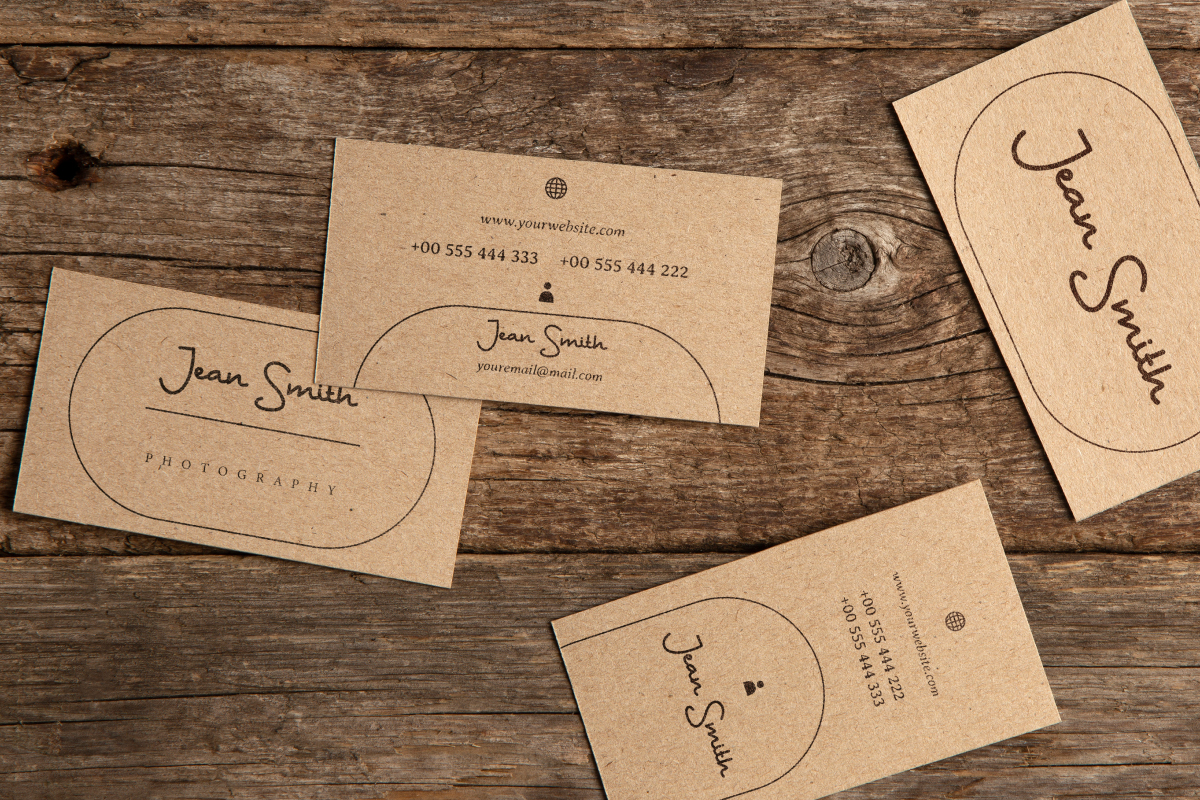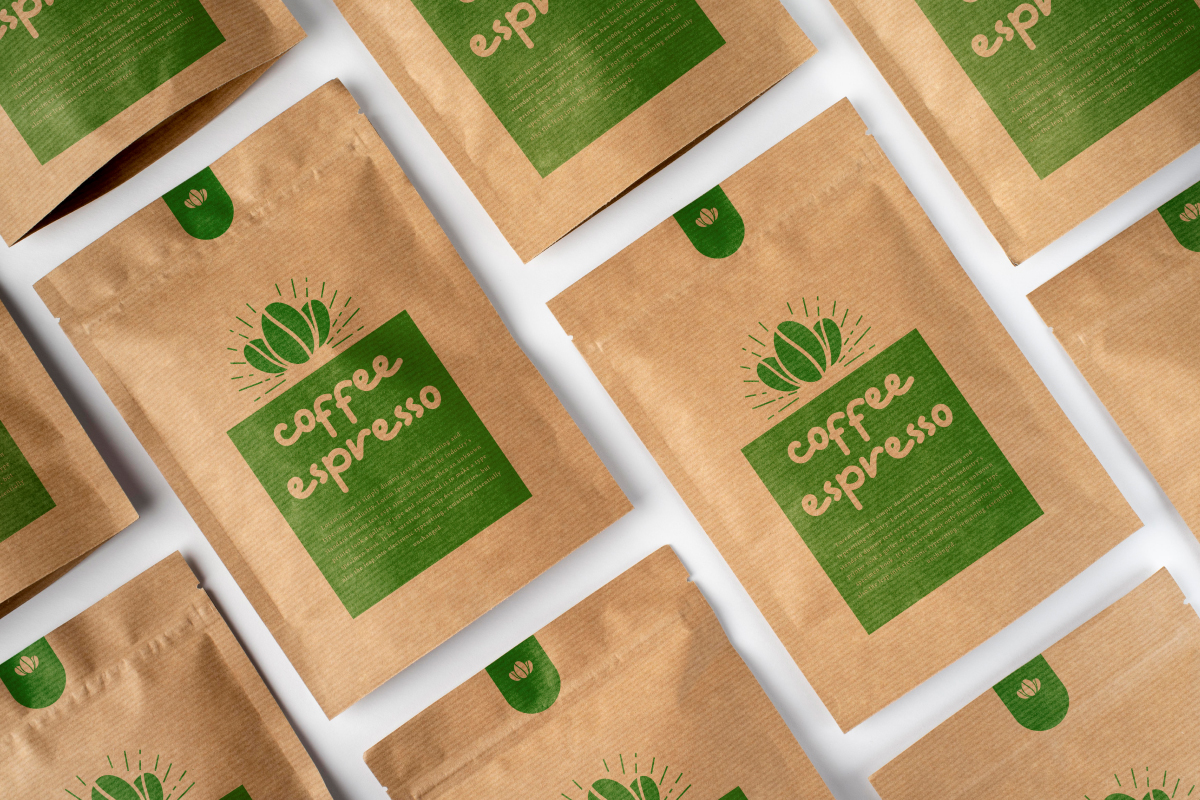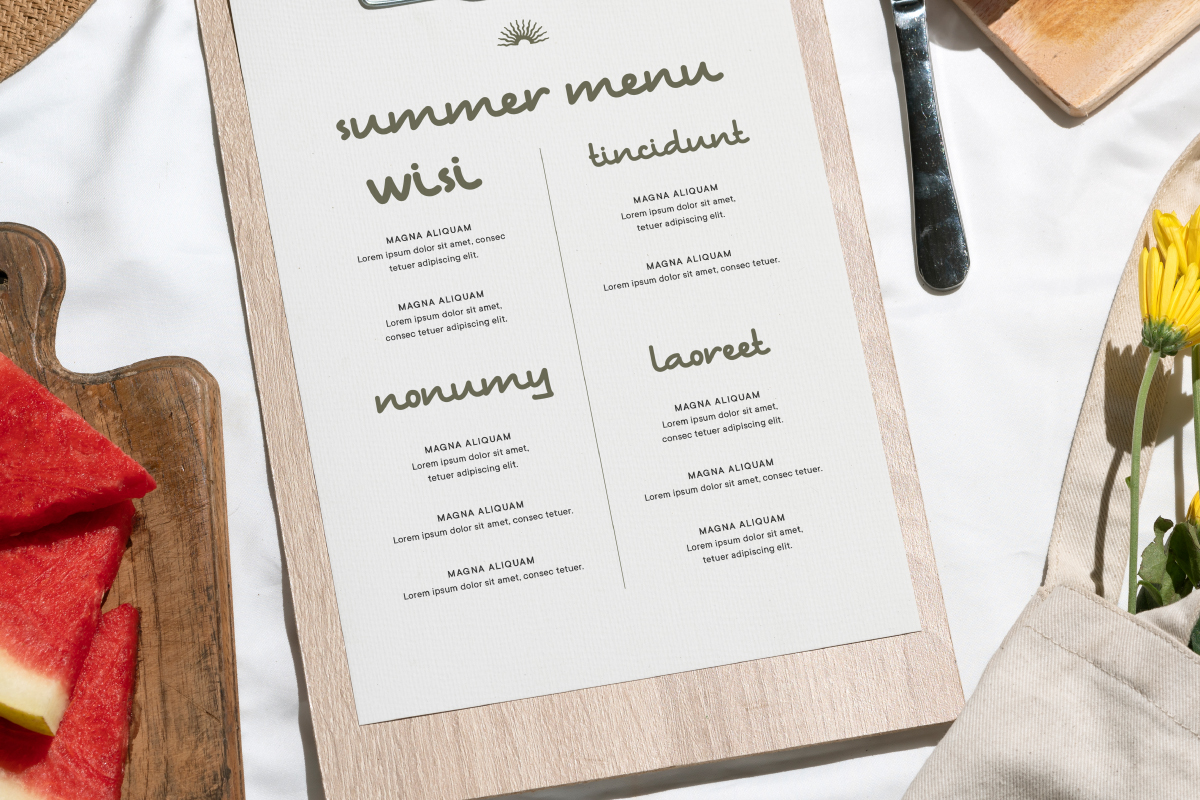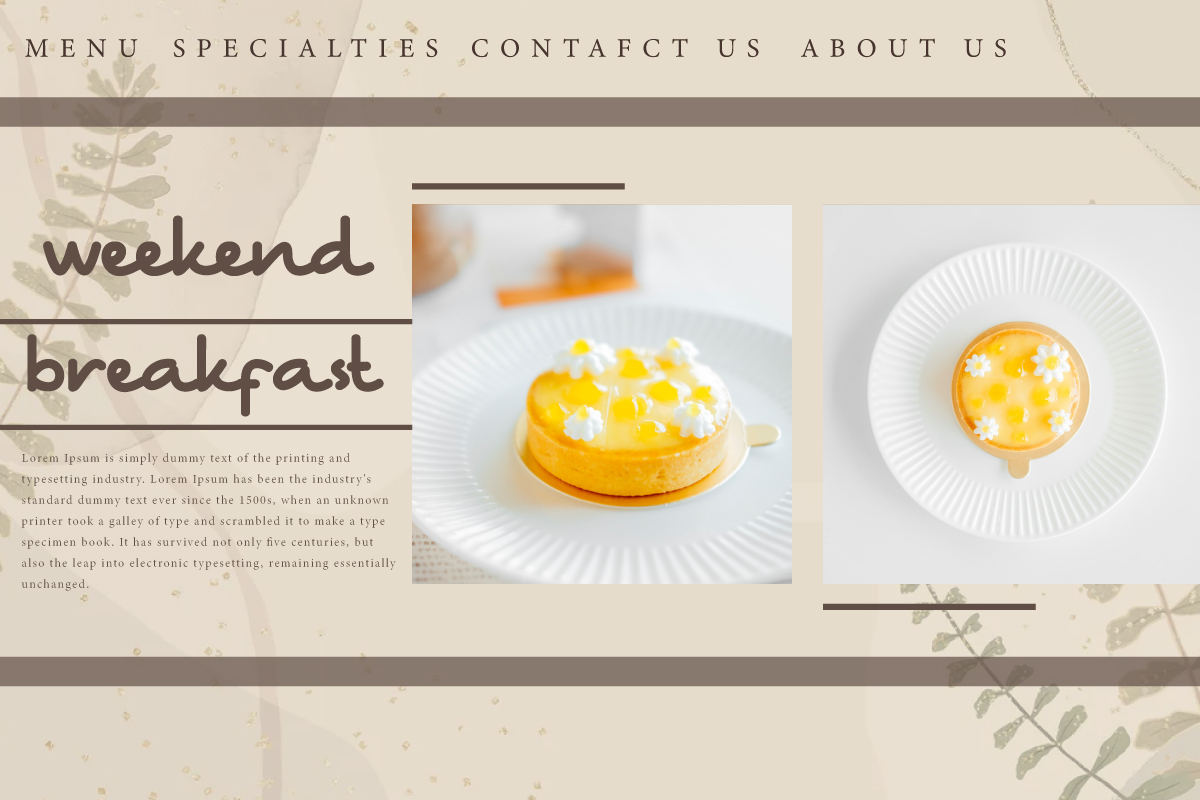
Hashtag Trend Font
Hashtag Trend Handwritten Font is a stylish handwritten font with a clean elegant monoline style, created by CalligraphyFonts. Net. The font has a strong lines with hand-drawn letterforms which will guaranteed to stand out in your designs, including : brand logo, business card, label, menu, product packaging, stationery, title, website, etc.